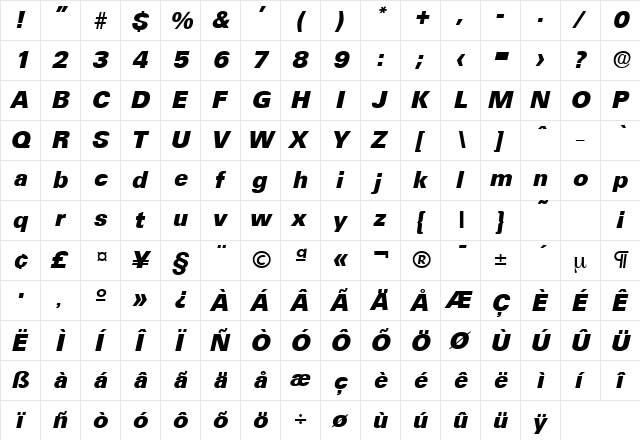
Ultimate-Serial-ExtraBold RegularItalic Font Preview
Design Context for Ultimate-Serial-ExtraBold Typeface
Ultimate-Serial-ExtraBold offers clean, dependable letterforms without strong stylistic allegiance, making it a practical choice for designers who need flexibility. Its italic angle brings a sense of urgency and motion to the letterforms. The heavy weight commands attention and anchors typographic hierarchies.
Pro Tip: Try Ultimate-Serial-ExtraBold for annotation and caption copy alongside an upright companion — the contrast in angle creates a dynamic but ordered typographic system.